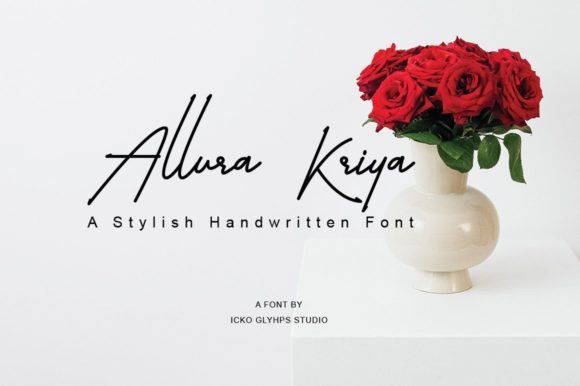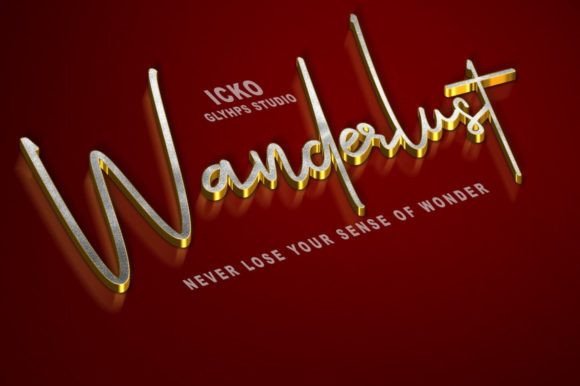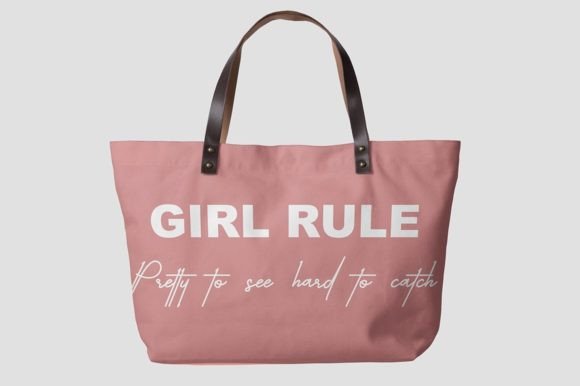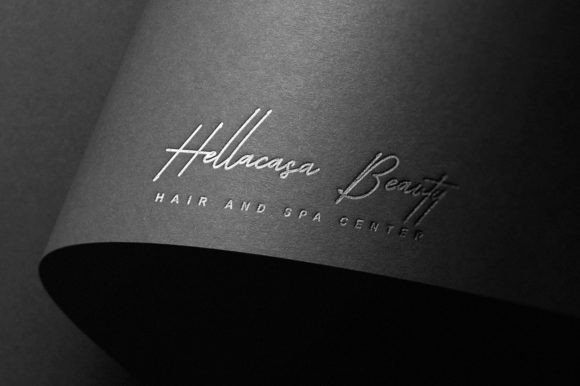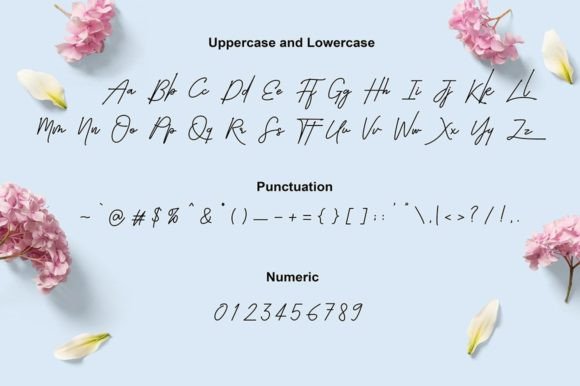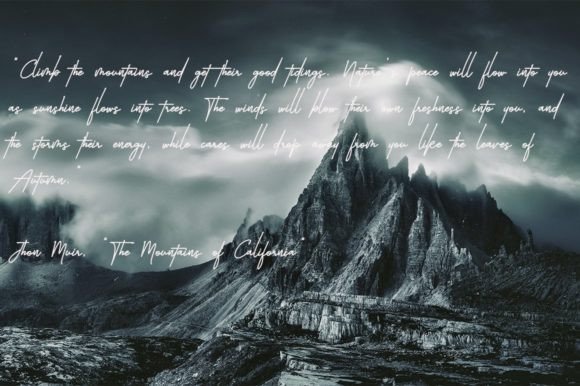
Allura Kriya Font
About Allura Kriya Font
“Allura Kriya” is an exquisite and delicate handwritten font, characterized by its elegant and dainty appearance, complete with sweet and delicate accents. This unique font style brings a touch of sophistication and charm to a variety of creative projects, making it a perfect choice for letterheads, titles, stationery, and branding materials.
The font’s elegance lies in its graceful letterforms and intricate details. The delicate accents add a subtle touch of femininity and refinement, making “Allura Kriya” particularly appealing for projects that require a soft and sophisticated aesthetic. The font’s original look sets it apart, making it a standout choice for those seeking a distinctive and elegant typeface.
In letterheads and titles, “Allura Kriya” adds a touch of class and professionalism. Its dainty and elegant appearance enhances the visual appeal of business correspondence, making a strong and memorable impression on recipients. Whether used in formal letters, resumes, or business proposals, the font elevates the overall presentation, making it more visually appealing and refined.
For stationery, “Allura Kriya” brings a sense of charm and sophistication. Its delicate accents and elegant script make it perfect for designing personalized stationery, including notecards, envelopes, and thank-you notes. The font’s soft and graceful appearance adds a personal touch to written communication, making each piece of stationery feel special and thoughtfully crafted.
In branding materials, “Allura Kriya” creates a distinctive and memorable visual identity. Its elegant and dainty design conveys a sense of luxury and refinement, making it suitable for high-end brands and businesses. Whether used in logos, business cards, or promotional materials, the font enhances the brand’s image, making it more appealing and memorable to customers.
Additionally, “Allura Kriya” is versatile enough to be used in various crafty ideas and DIY projects. Its elegant and delicate style lends itself well to creative endeavors such as handmade cards, scrapbooking, and custom gifts. The font’s unique and original look adds a touch of artistry to these projects, making them more visually appealing and heartfelt.
In summary, “Allura Kriya” is a font that exudes elegance and charm, making it a valuable asset for a wide range of creative applications. Its dainty and delicate accents add a touch of sophistication to letterheads, titles, stationery, branding materials, and crafty ideas. Embrace the elegant allure of “Allura Kriya” in your projects, and let it transform your designs into exquisite and refined creations that leave a lasting impression on your audience.